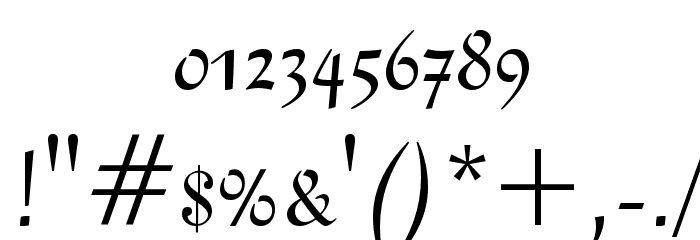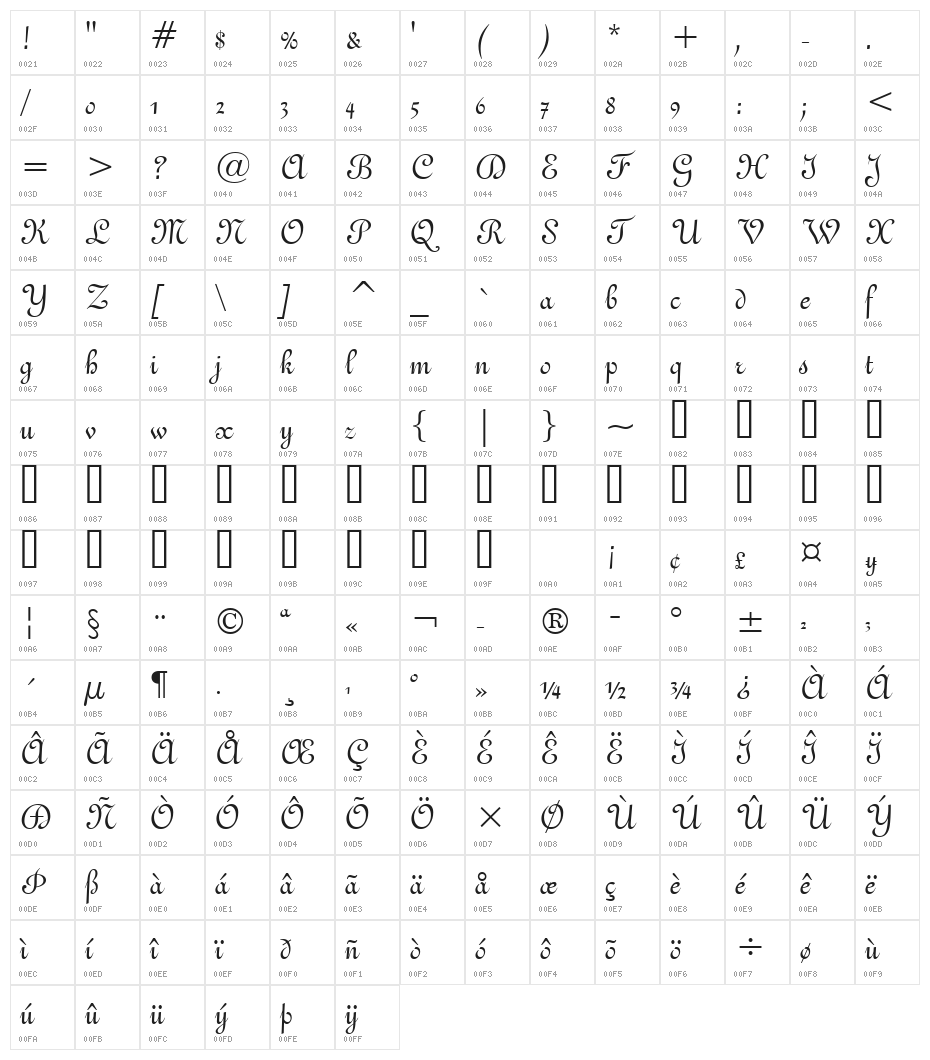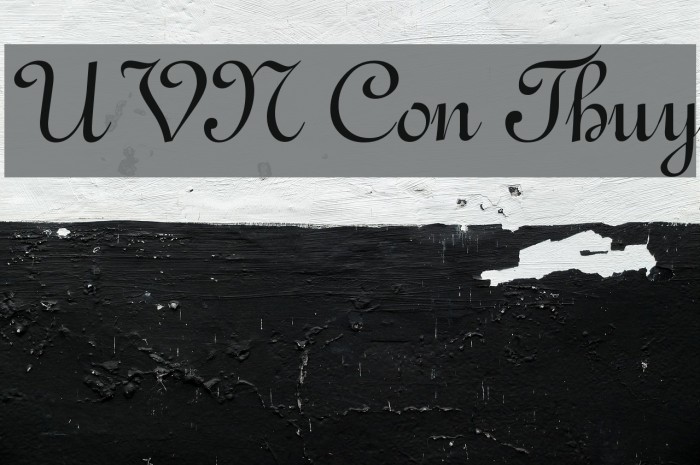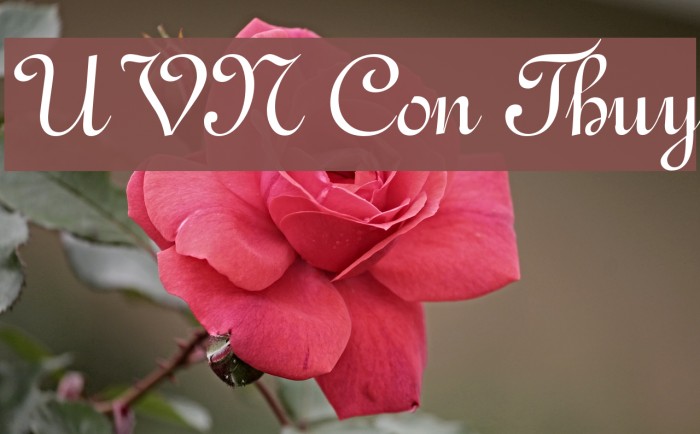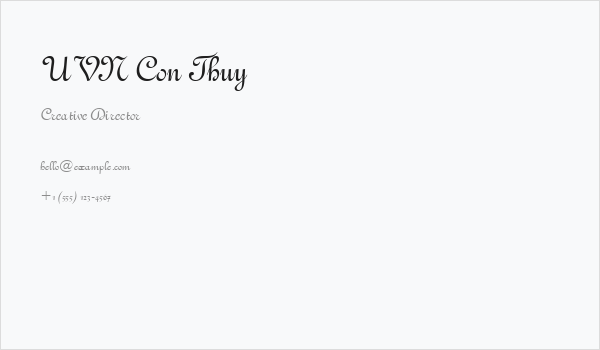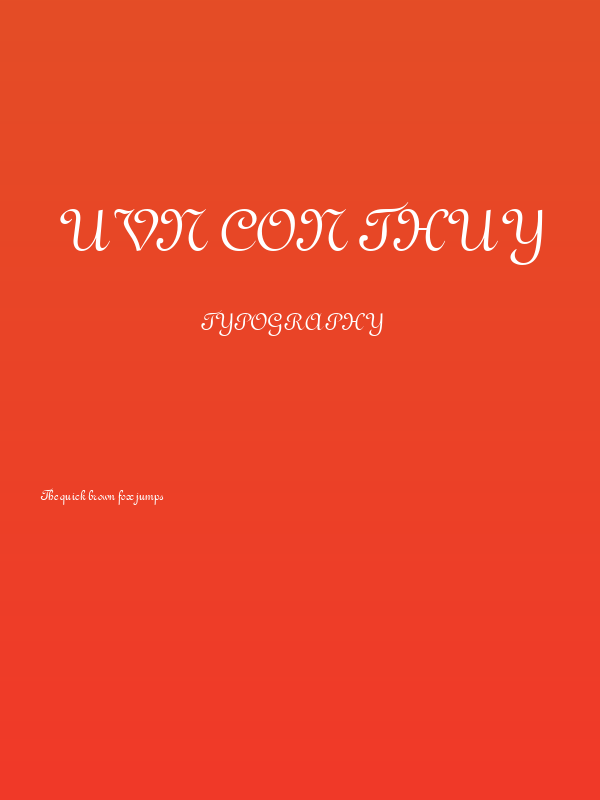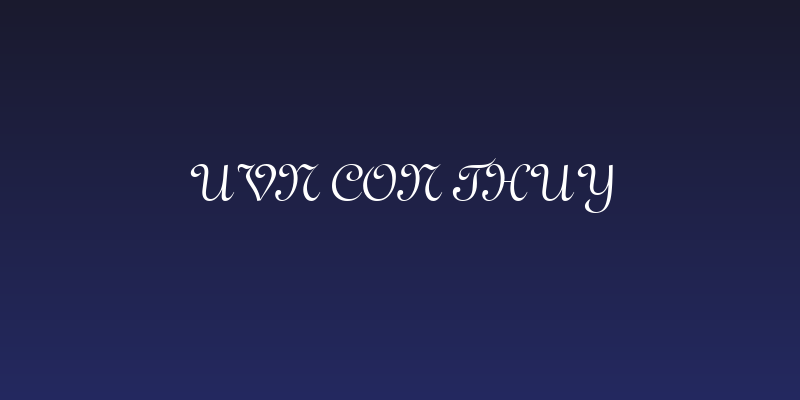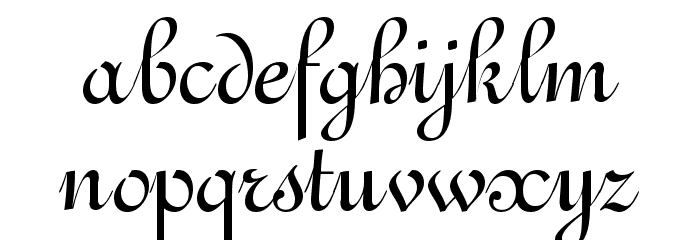
UVN Con Thuy Font
UVN Con Thuy Description
This font features an elegant and flowing script style with a modern twist. The uppercase letters are characterized by their ornate loops and swirls, giving them a sophisticated and decorative appearance. The lowercase letters maintain a consistent fluidity, with gentle curves and a slight slant that enhances readability. The numerals are designed with a similar flair, incorporating subtle curves that align with the overall aesthetic. Special characters are thoughtfully crafted to match the font's elegant style, making it suitable for a variety of creative applications.